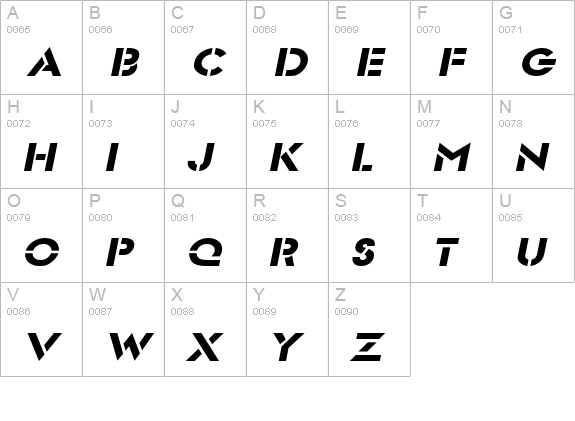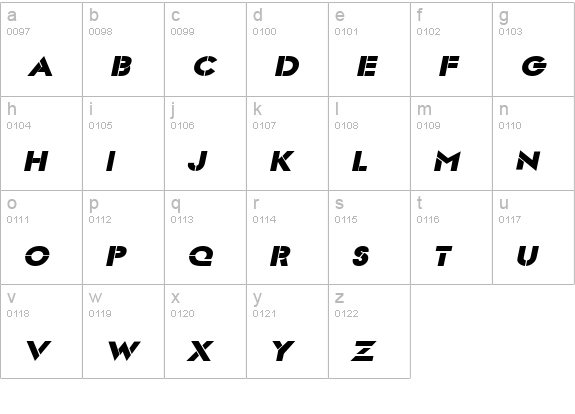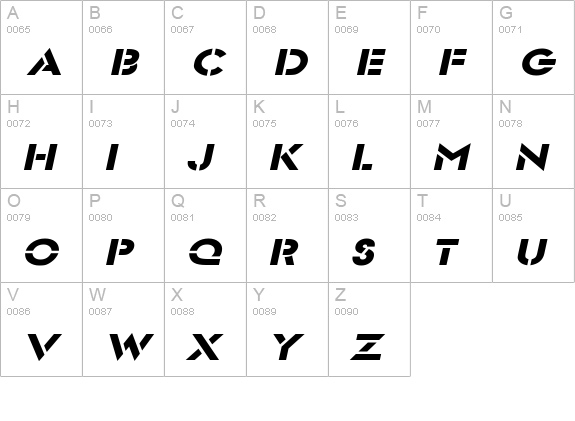
Templett Wide BoldItalic is a distinctive, extended-width variant in the Templett typeface family \xE2\x80\x94 well suited to design and typography projects.
Introducing Templett Wide BoldItalic font, a captivating and versatile typeface that combines the elegance of boldness and the allure of italics. This font exudes a sense of confidence and style, making it perfect for a wide range of design projects. With its clean lines and contemporary appeal, Templett Wide BoldItalic adds a touch of sophistication to any design. Whether you're creating eye-catching headlines for a magazine spread, designing a sleek logo for a modern brand, or crafting attention-grabbing social media graphics, this font is sure to make a lasting impression. One of the best parts about Templett Wide BoldItalic font is that it is free to download at FontsMarket.com. Yes, you read that right - absolutely free! This means that you can enjoy the benefits of this stunning font without breaking the bank. It's a fantastic opportunity to elevate your design projects without spending a dime. So why wait? Go ahead and download Templett Wide BoldItalic font from FontsMarket.com today and unlock limitless design possibilities. Whether you're a professional designer or a creative enthusiast, this font is a must-have in your typographic toolkit. Embrace the boldness and elegance of Templett Wide BoldItalic font and let your designs speak volumes.